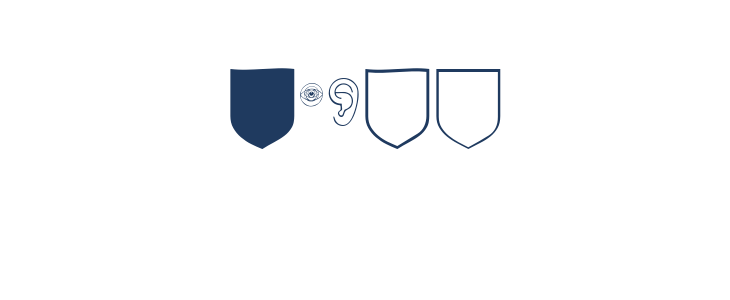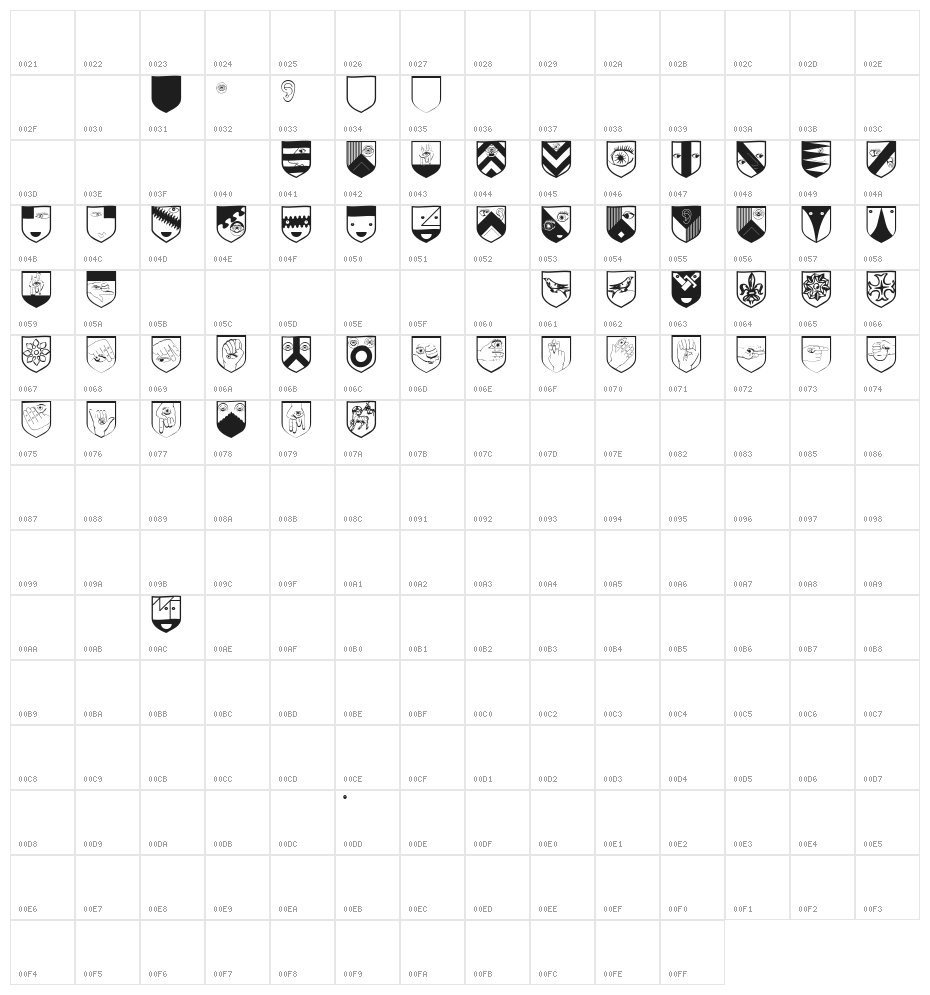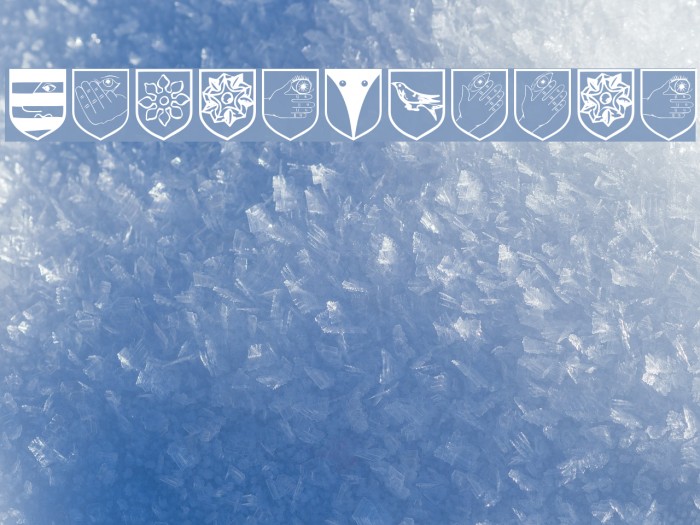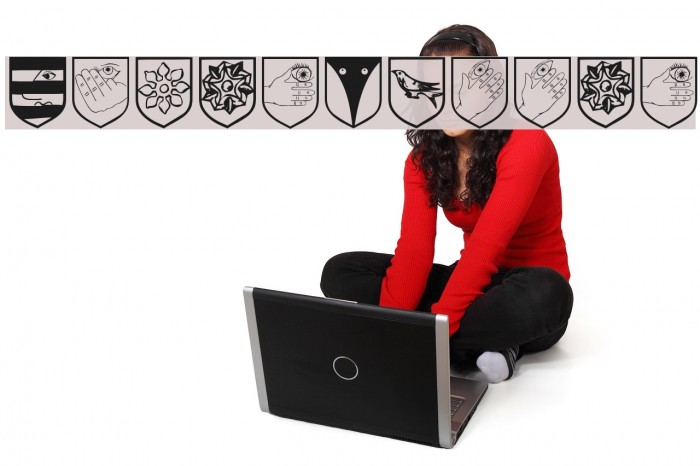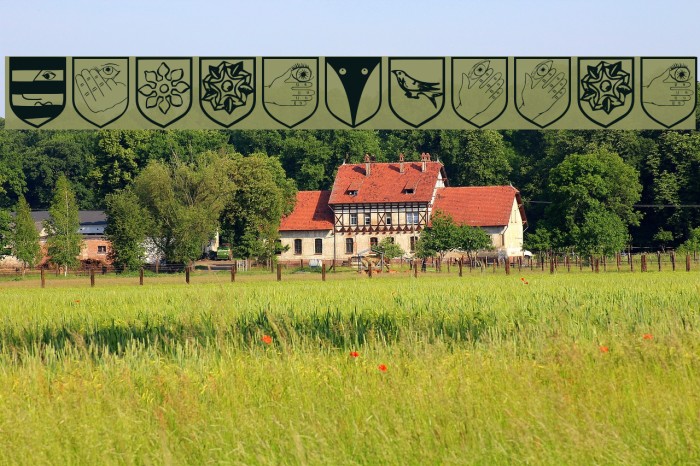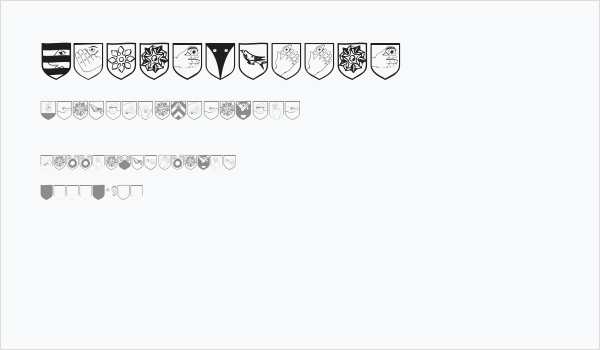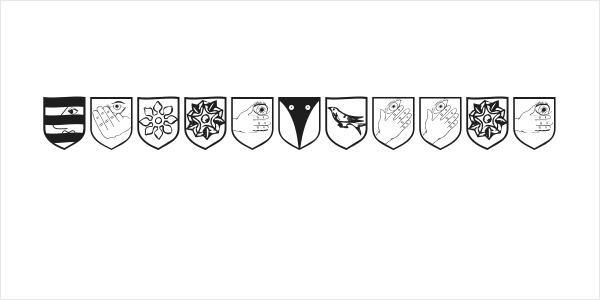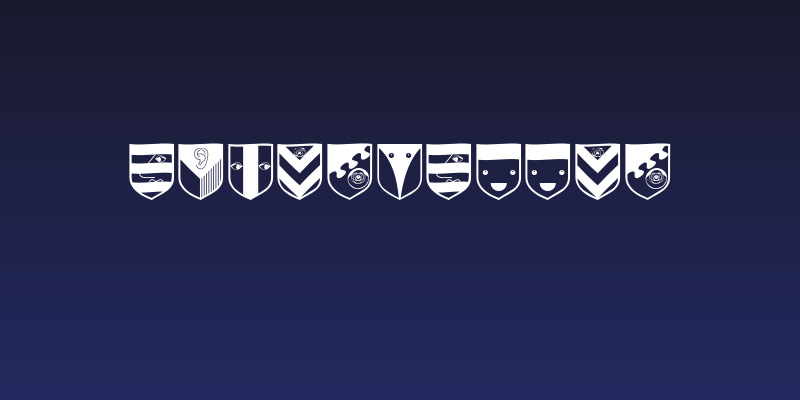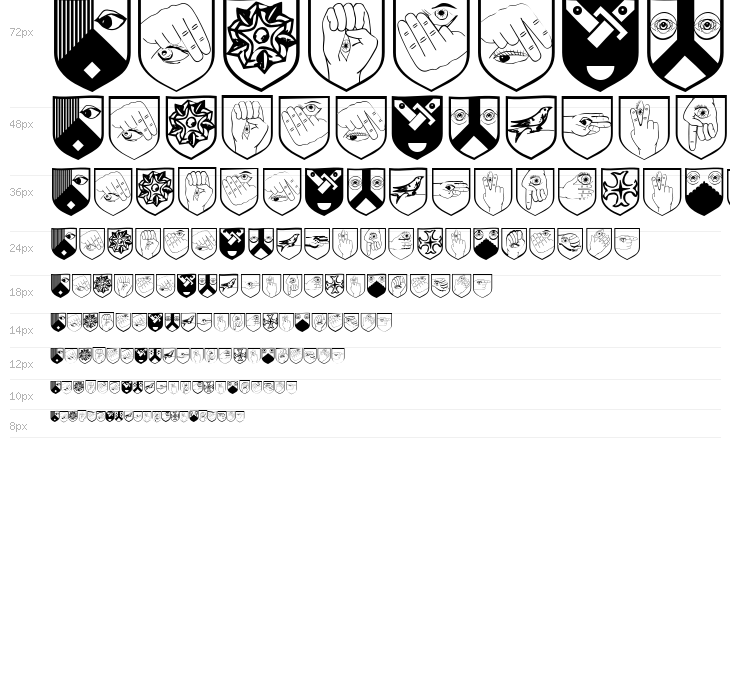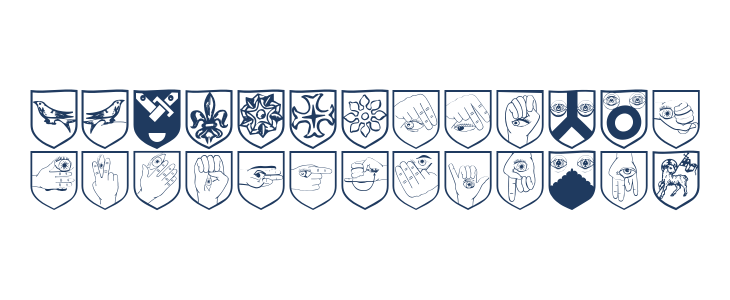
AugenWappen Font
AugenWappen Description
A highly decorative and illustrative font composed of shield-shaped glyphs, each containing unique heraldic or symbolic imagery such as eyes, hands, geometric patterns, and faces. The characters are not traditional letterforms but rather pictorial emblems, giving the set a medieval or fantasy-inspired aesthetic.
| Overall Style | Decorative, Heraldic, Fantasy |
| Use Case | Logos, Posters, Titles, Themed Graphics |
| Proposed Projects | Fantasy book covers, game titles, heraldic posters, themed branding, event invitations. |